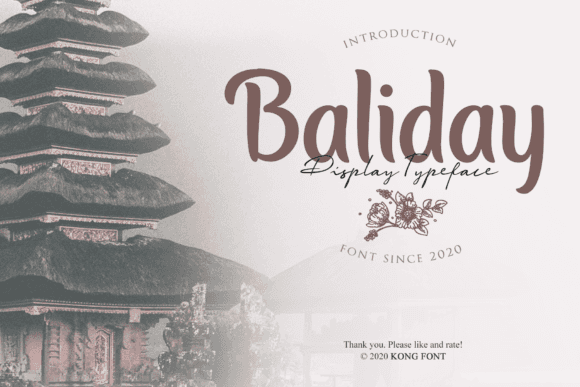
Baliday Font for Headlines, Posters and Branding Projects
Baliday Font is a striking display typeface engineered for headlines, poster layouts, and visual branding campaigns. With bold proportions and balanced letterforms, it’s perfect for designs that demand attention and communicate with authority. Its unique character and distinctiveness ensure that any message stands out, making it an ideal choice for creative professionals. For those looking for versatility in their designs, combining Baliday Font with barika font for branding projects can create a captivating visual hierarchy that enhances brand recognition. This synergy not only elevates the overall aesthetics but also reinforces the core message across various platforms. Its unique character set and modern aesthetics make it a versatile choice across various media. Designers seeking a captivating solution will find that Baliday Font is an excellent ballade font for branding projects, ensuring clear communication and memorable impressions. Whether utilized in digital formats or traditional print, this typeface elevates any creative endeavor.
Designed as a font entity, Baliday is optimized for both large-scale print and digital screen applications. Its clean architecture and strong baseline presence make it an ideal choice for brand designers, event promoters, and content creators who need type to speak loud and clear. Its versatility allows for seamless integration across various platforms, maintaining readability and impact regardless of size. Additionally, the barakuda font for branding complements Baliday's aesthetics, offering a dynamic option for those looking to elevate their visual identity. With a commitment to clarity and professionalism, these fonts together create a powerful toolkit for any creative project. The baltic beach font features a unique blend of elegance and modernity, making it another fantastic addition to the designer's arsenal. Its flowing lines and distinctive style provide an eye-catching contrast that enhances visual storytelling. By incorporating these fonts into their projects, creatives can ensure their messages resonate more profoundly with their audiences, heightening both engagement and brand loyalty.
- Designers producing headline and poster layouts
- Brand creators building modern identity systems
- Marketing teams crafting campaign visuals
- Print professionals working on signage and packaging
- Digital content creators needing bold titles
- Event posters and campaign flyers
- Brand logos and packaging design
- Social media graphics and thumbnails
- Large-format banners and signage
- Magazine covers and editorial spreads
- Bold and balanced for maximum legibility
- Ideal for modern branding and impactful headlines
- Ready for both print and digital environments
Q: What type of font is Baliday?
A: Baliday is a bold display font designed for standout headlines, posters, and branding visuals.
Q: Is this font suitable for posters and banners?
A: Yes, Baliday Font was designed specifically for large-scale, high-visibility use in print and digital formats.
| Feature | Baliday Font | Generic Serif Font | Generic Script Font |
| Primary Use | Headlines, posters, brand visuals | Body text, documents, articles | Invitations, quotes, decor |
| Visual Style | Bold, geometric, modern | Classic, serifed | Handwritten, ornate |
| Best Use Case | Marketing, signage, web headers | Books, resumes, presentations | Cards, crafts, lifestyle branding |